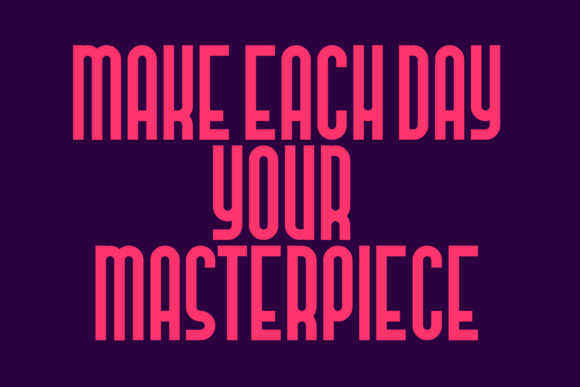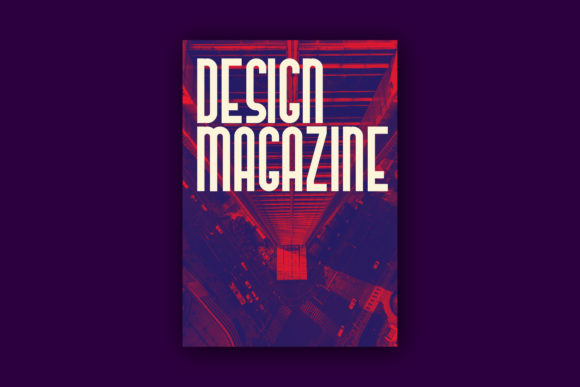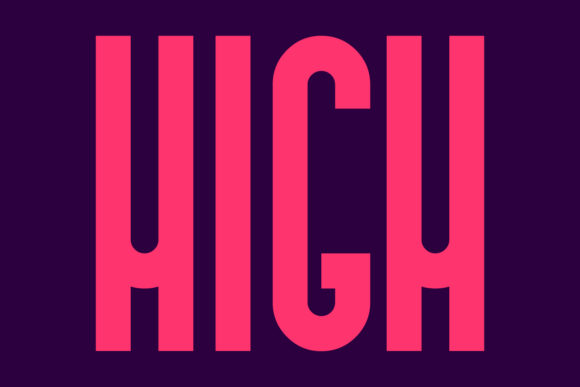
Introduction to Mandan Font
Mandan is a simple and casual display font with an undeniably clean feel.
This font will look particularly adept when used in logos, branding, packaging design, and much more .